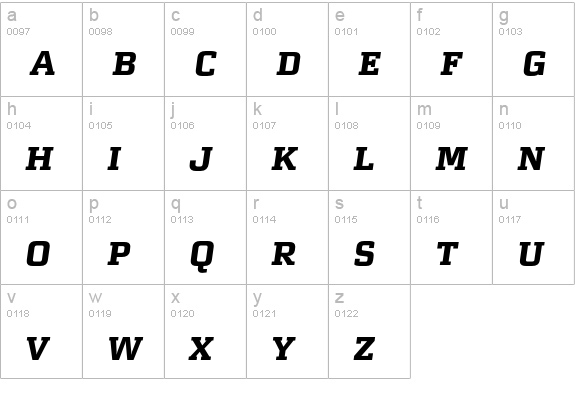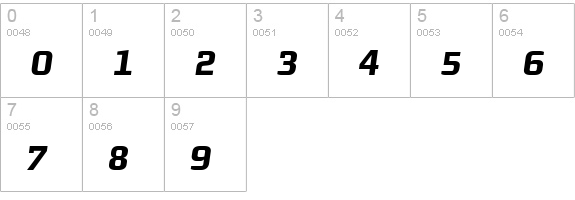
MorganAvec Bold ItalicCaps is a strong, high-contrast variant in the MorganAvec typeface family \xE2\x80\x94 well suited to headlines, attention-grabbing titles, and strong calls-to-action.
MorganAvec Bold ItalicCaps font is a bold and stylish typeface that exudes modernity and sophistication. Its unique combination of boldness and italics creates a striking visual impact, making it perfect for headlines, logos, and branding projects. The sleek design of this font is sure to capture attention and elevate any design it is used in. What makes MorganAvec Bold ItalicCaps font even more appealing is that it is available for free download at FontsMarket.com. This means that you can easily access and use this stunning font in your projects without any cost involved. Don't miss out on the opportunity to add a touch of elegance and flair to your designs with the MorganAvec Bold ItalicCaps font. Download it today and unleash your creativity!